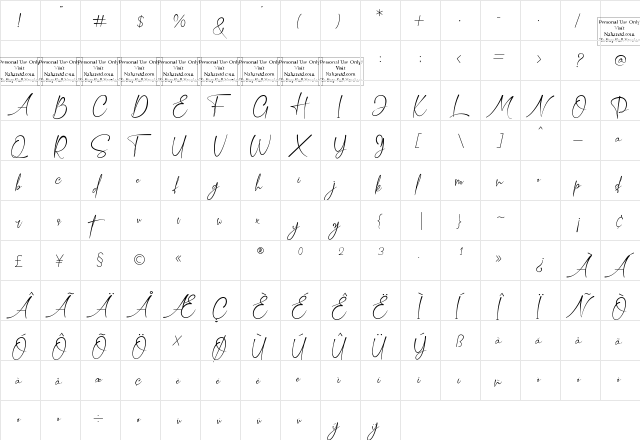
Confidently Regular
Design Context for Confidently Typeface
Confidently is a composed and adaptable typeface that performs quietly and consistently across a wide range of design contexts.
Pro Tip: Pair Confidently with a font of contrasting weight or personality to build a more expressive typographic hierarchy.